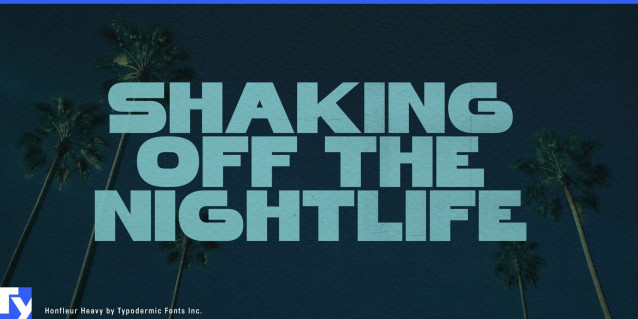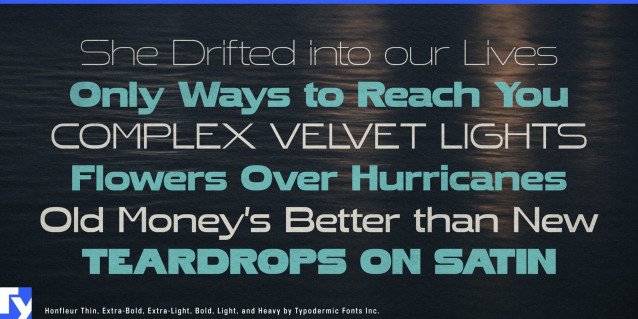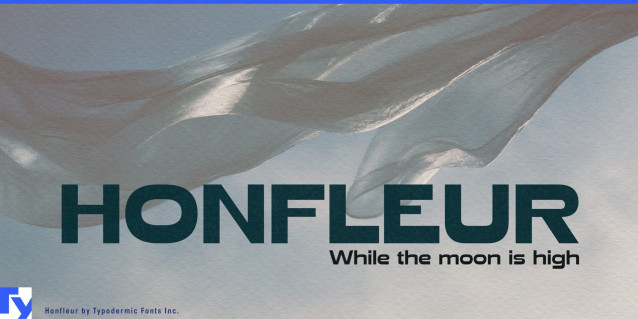
Honfleur Font
Honfleur Font a statement without raising its voice. Its exceptionally wide, geometric letterforms plant themselves firmly on the page, each stroke even and assured. Corners are softened, giving its modernist precision a touch of human warmth, while open counters and high crossbars invite light and air into every word. The result is a typeface that commands space with calm authority, now with the range to adapt from delicate to bold expression.
Inspired by a 1938 perfume poster, Honfleur carries a trace of old-world elegance without feeling bound to the past. Its expanded range of weights and matching italics allows it to move effortlessly between roles: light styles bring a refined, airy presence to editorial layouts, while heavier weights deliver confident impact for headlines, signage, and branding. From contemporary gallery announcements to boutique hotel identities, it maintains a composed, sophisticated voice across every application.
Honfleur excels in large-scale settings, posters, storefronts, packaging, and editorial spreads…where clarity and presence matter. Its generous width gives words room to breathe, even at a distance, while its balanced forms ensure legibility without sacrificing style. With extended Latin language support, it carries its poise across a wide range of languages, from French-inspired branding to modern international design.
Whether you’re shaping a visual identity, designing packaging with a cosmopolitan edge, or setting headlines that need presence without aggression, Honfleur offers a versatile system of styles to support your work…gracefully and on its own terms.